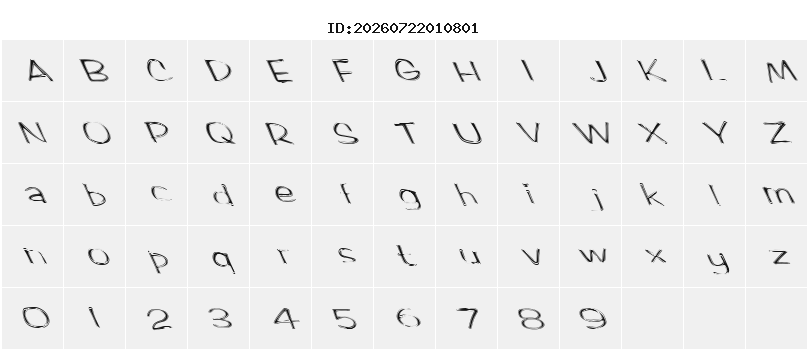
FZ HAND 2 CONTOUR LEFTY.ttf is a modern, elegant sans-serif font designed for ultimate readability and visual harmony. Perfect for branding, headlines, web design, and print materials.